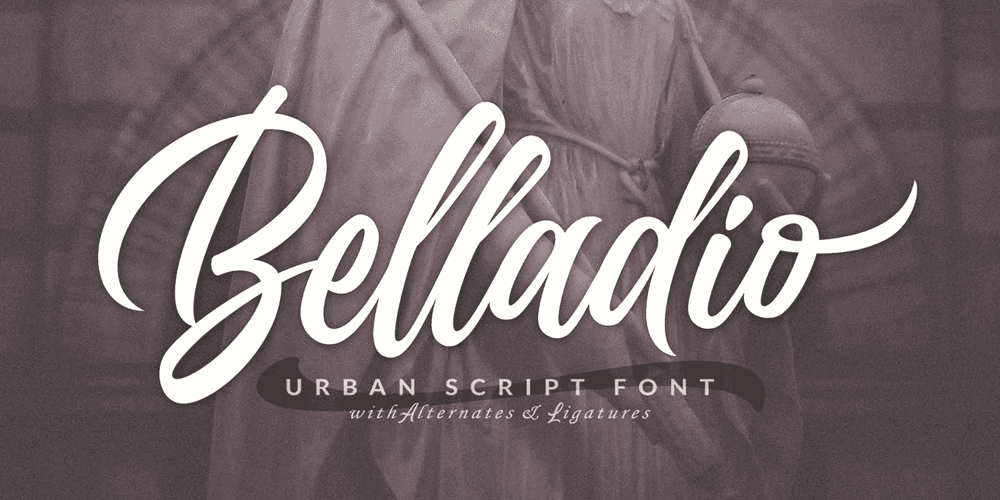
Belladio Font Family was designed by Måns Grebäck and published by Mans Greback. Belladio contains 1 styles and family package options. Belladio is a beautiful calligraphic script typeface.An urban brush font, the handwriting is designed to help you to design professional graphics in cool, flowing styles; elevating your brand to the next level. It can be imagined on a t-shirt design or as a signature logotype. With its multiple alternates and ligatures, Belladio is sure to give any project a custom and genuine style. Use underscore _ to make a swash. Example: Ama_zingUse multiple underscores for different swashes. Example: Won_______der(Download required.)The font is built with advanced OpenType functionality and has a guaranteed top-notch quality, containing stylistic and contextual alternates, ligatures and more features; all to give you full control and customizability. It has extensive lingual support, covering all Latin-based languages, from North Europe to South Africa, from America to South-East Asia. It contains all characters and symbols you’ll ever need, including all punctuation and numbers.